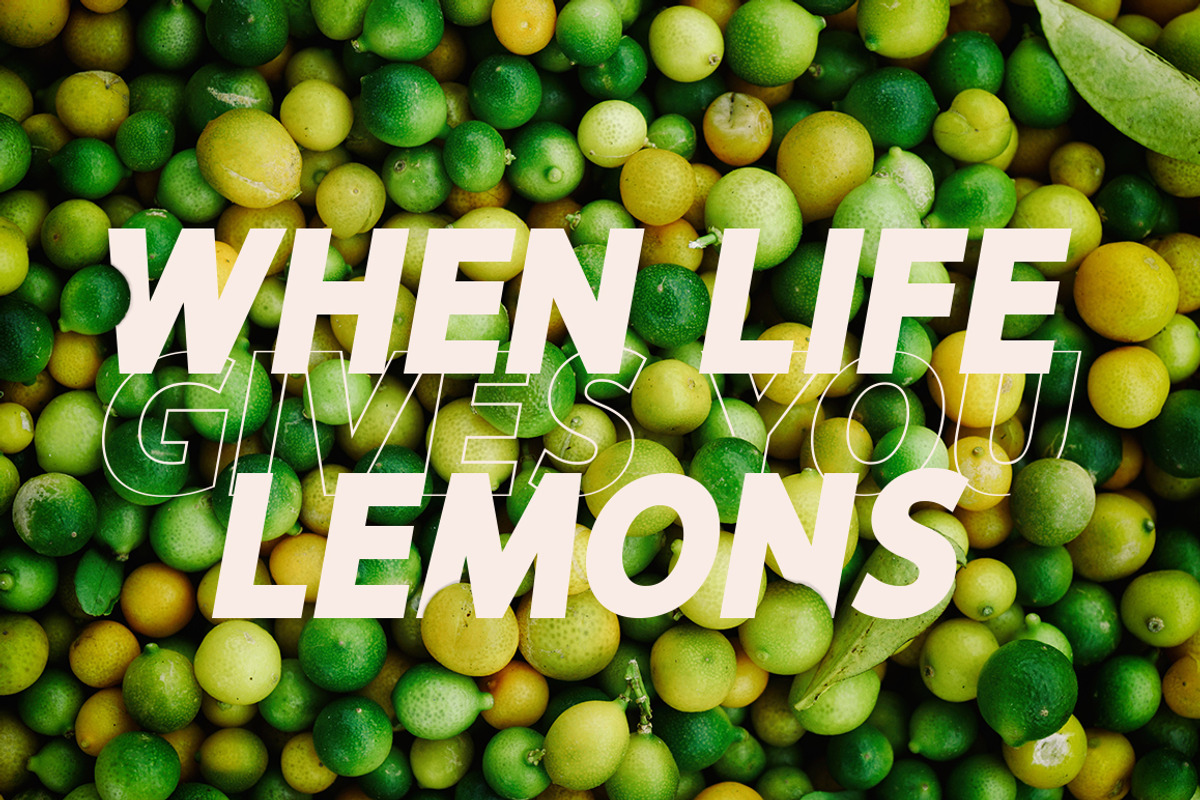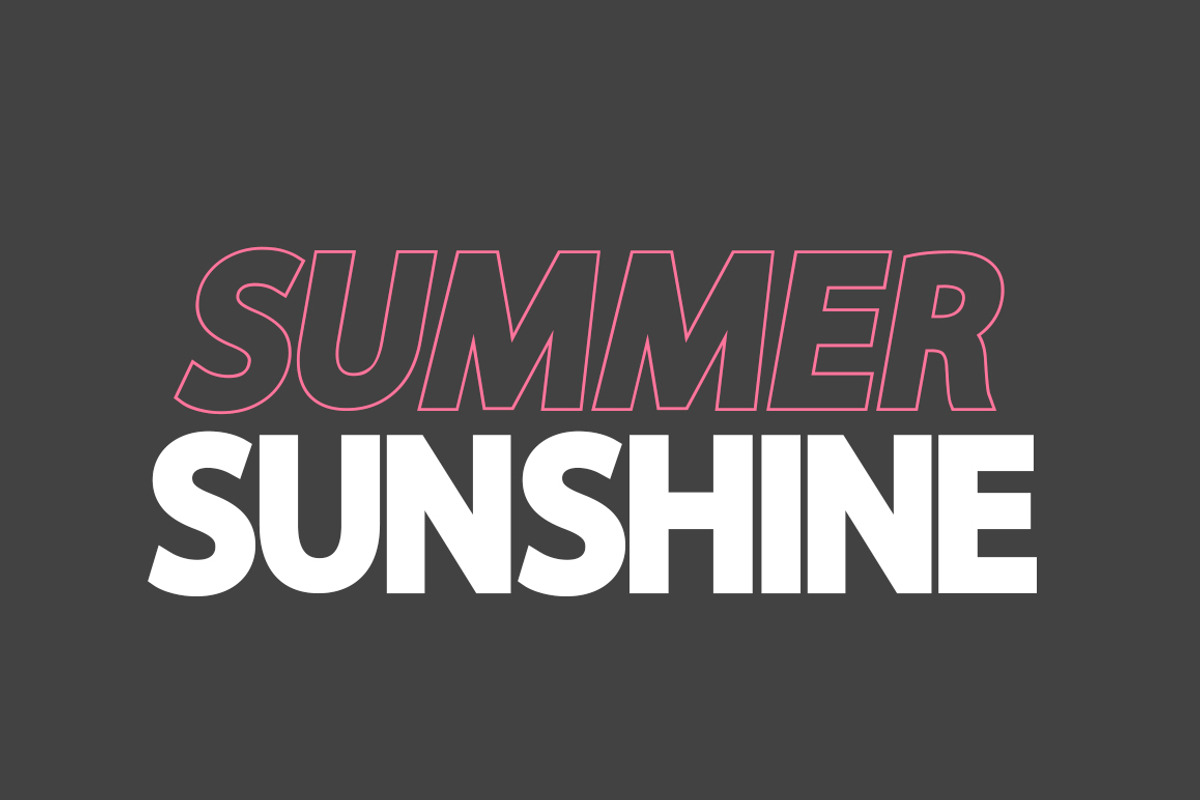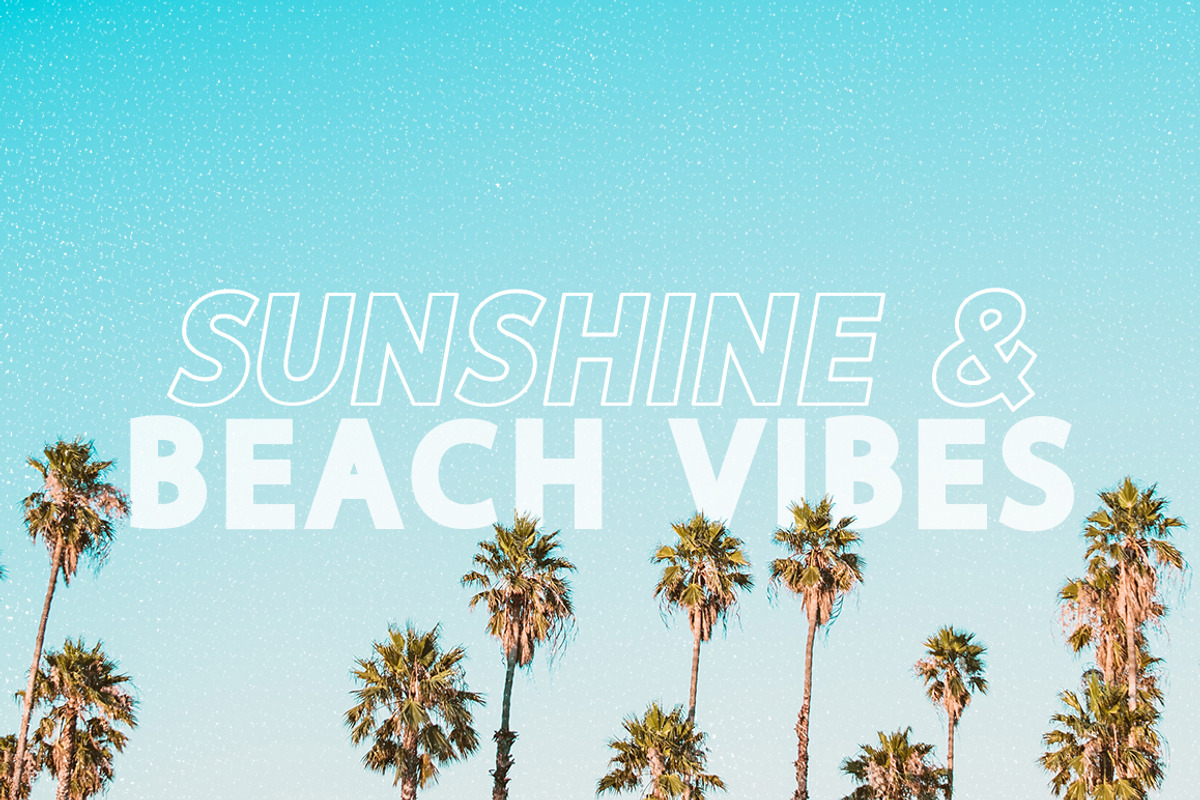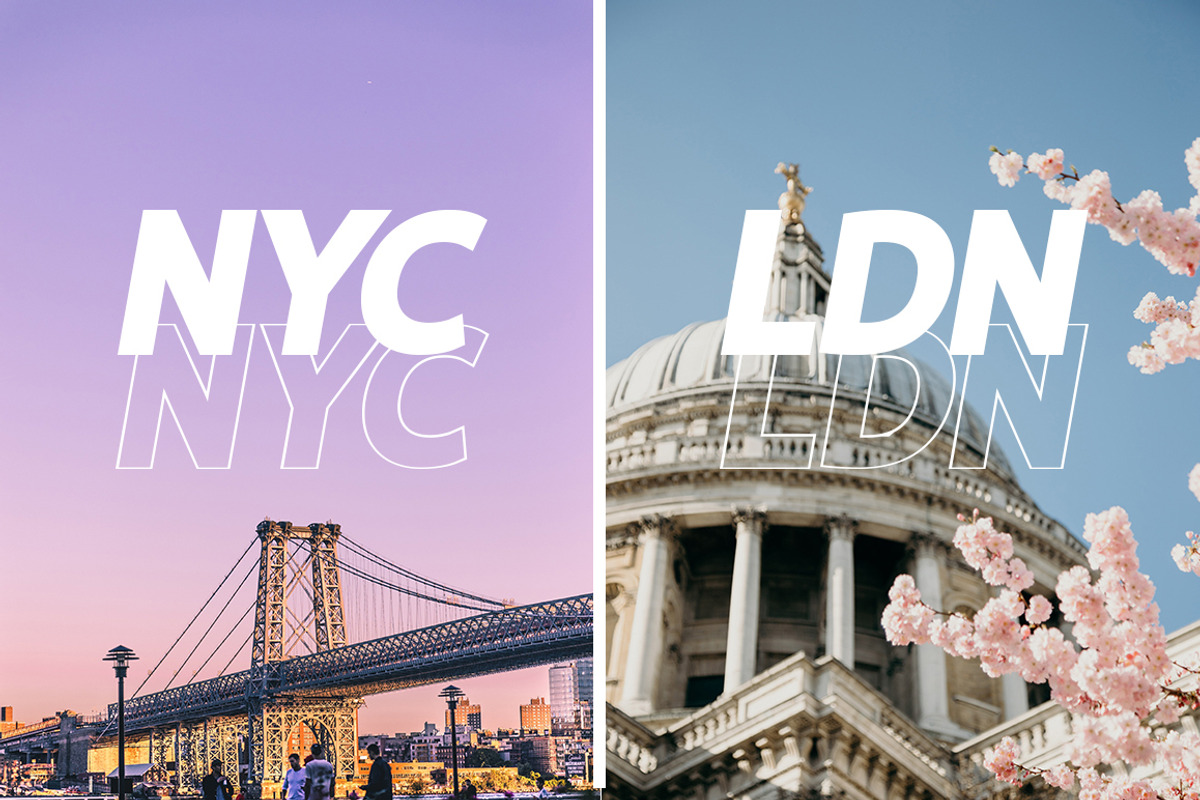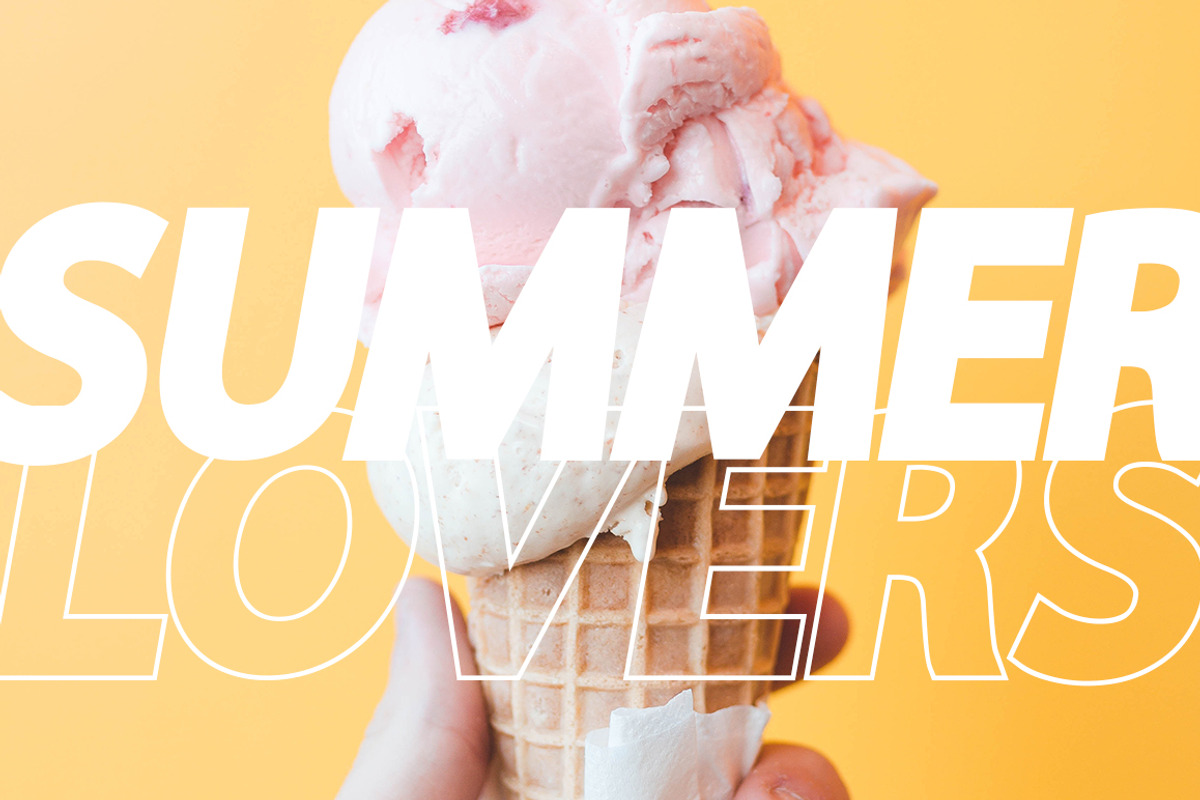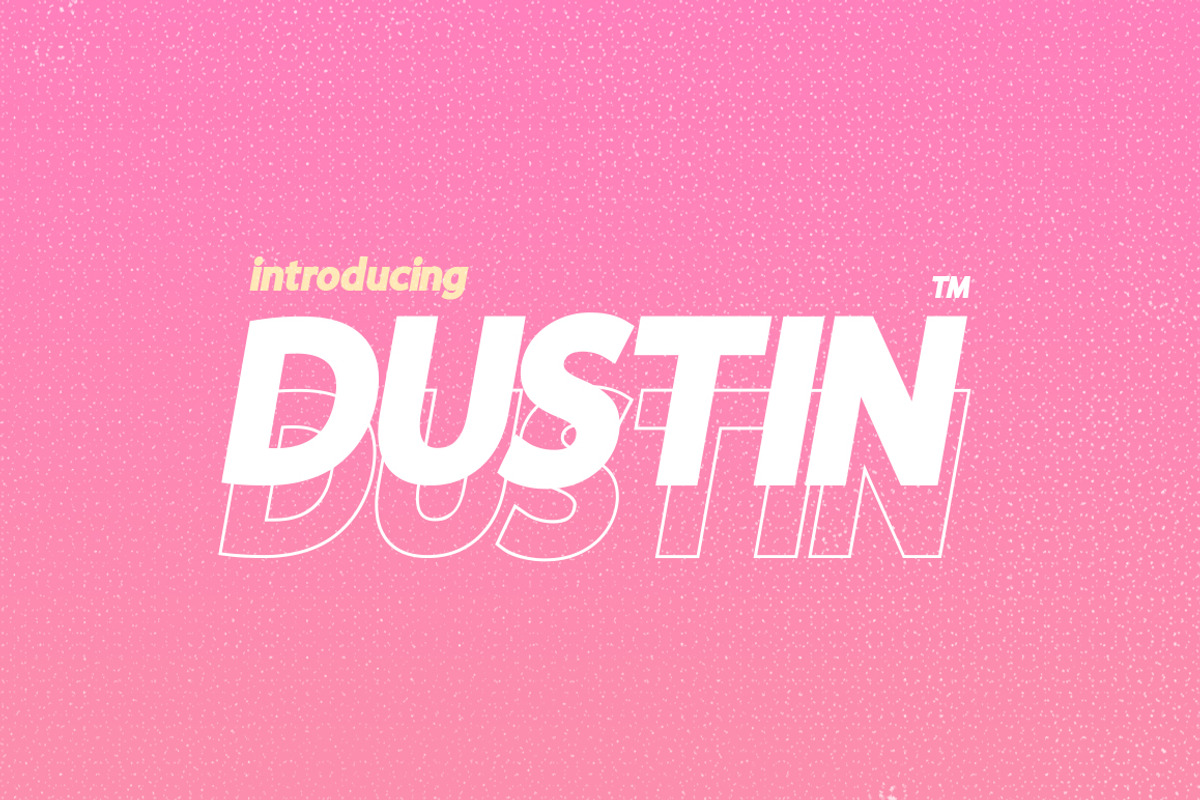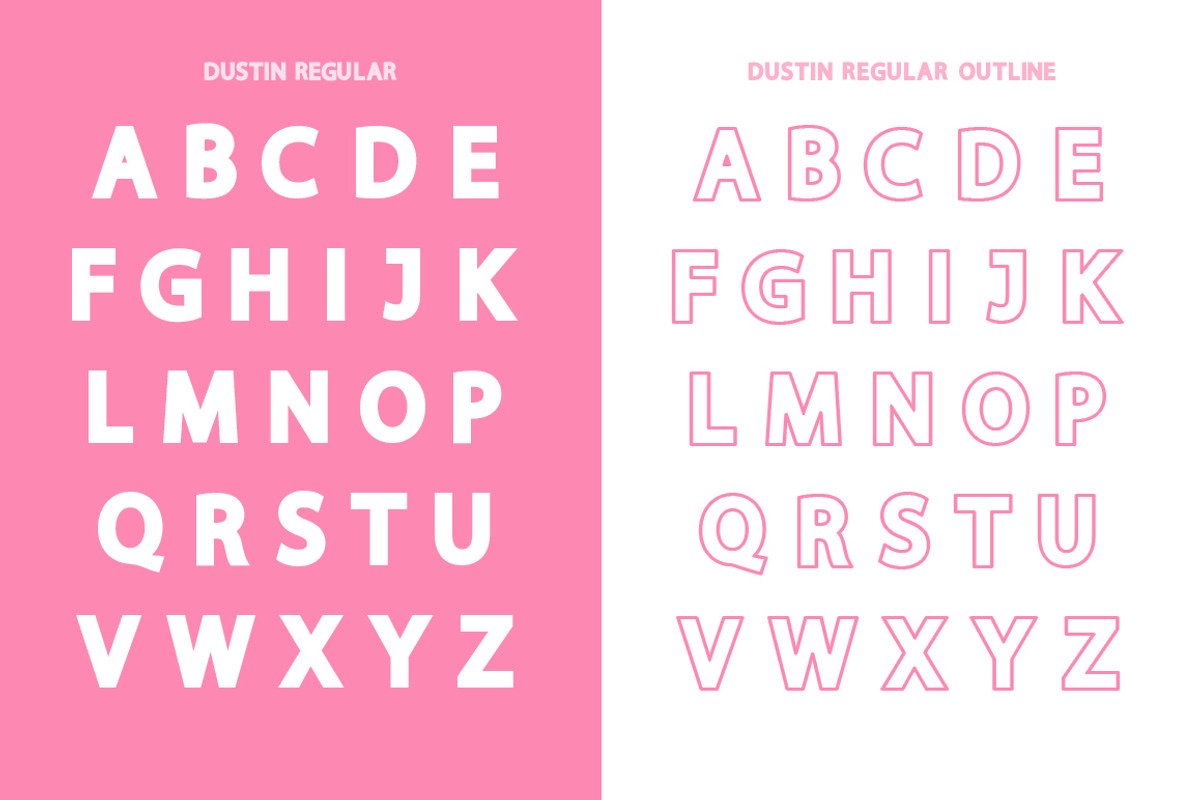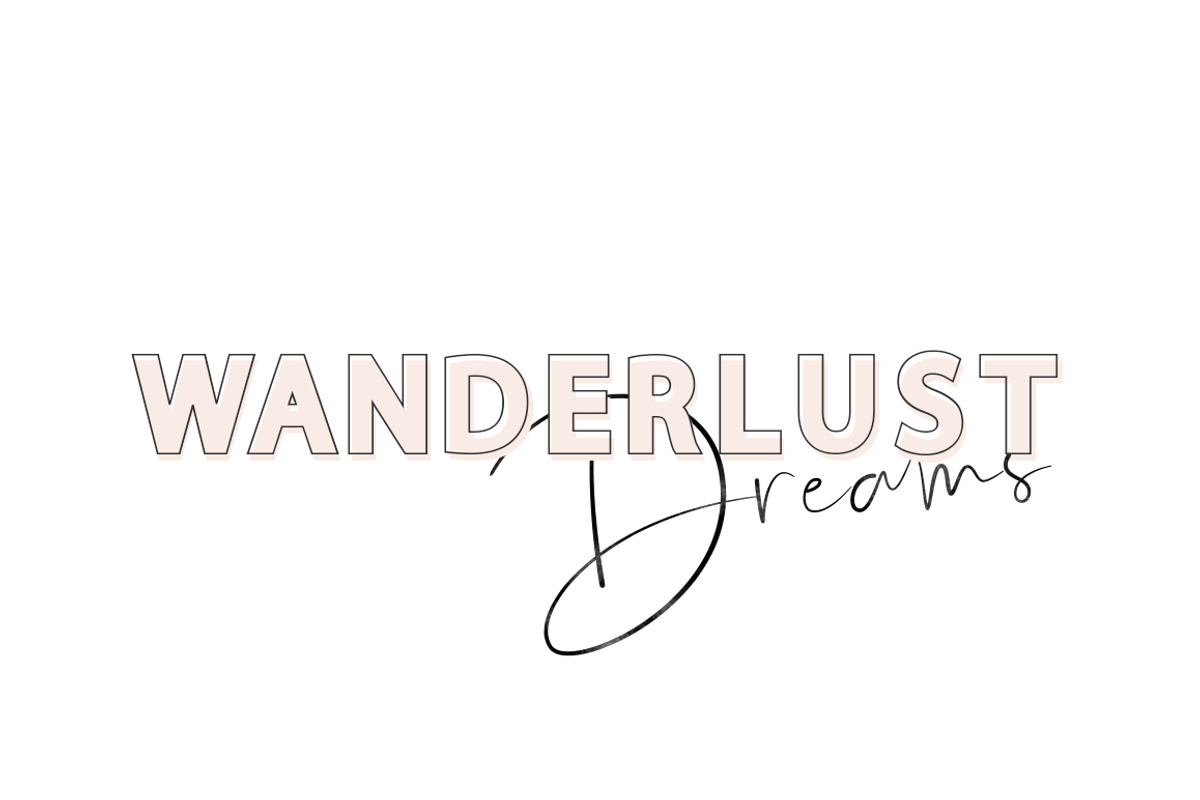
Dustin Sans Font Family
Introducing the brand new Dustin Font Quartet. This beautiful and professional typeface family includes 4 alternate fonts. Dustin Regular and Dustin Italic, which are both included in regular filled and outline versions. Combine each font together to create stunning designs.
Why Dustin Sans Font Family is worth a look
Dustin Sans Font Family by Salt & Pepper Designs fits naturally into Branding, posters, packaging, typography.